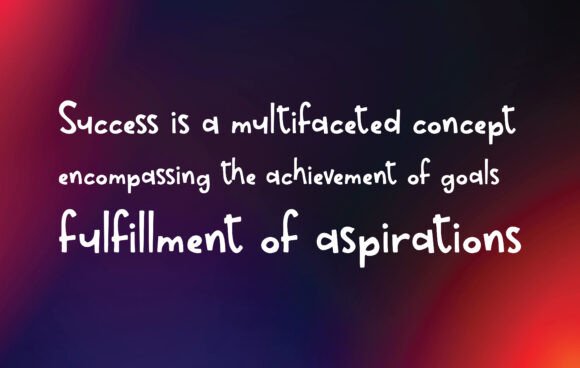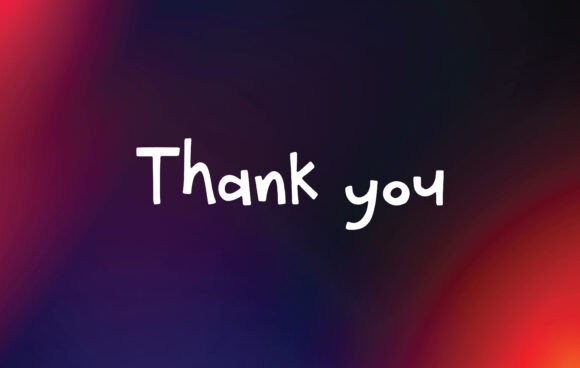
Aardwolf Font: Elevate Your Creative Projects with this Lovely Handwritten Font
Are you a designer, crafty person, or creative enthusiast looking for a unique and beautiful font to take your projects to the next level? Look no further than the Aardwolf Font! This stunning handwritten font is designed to help you create eye-catching logos, branding, and quotes that will leave a lasting impression on your audience.
What Makes Aardwolf Font So Special?
Aardwolf Font is a lovely and beautiful handwritten font that boasts a distinctive and elegant style. Its unique charm and character make it the perfect choice for designers and crafters who want to add a personal touch to their work. Whether you’re creating a logo, branding materials, or social media graphics, Aardwolf Font is sure to make your project stand out from the crowd.
Key Features of Aardwolf Font
- Handwritten style: Aardwolf Font features a beautiful handwritten style that adds a personal touch to any project.
- Unique character: The font’s distinctive character and charm make it perfect for creating eye-catching logos and branding materials.
- Elegant and sophisticated: Aardwolf Font’s elegant and sophisticated design makes it ideal for creating high-end branding and marketing materials.
- Versatile: This font is versatile and can be used for a wide range of projects, from logos and branding to quotes and social media graphics.
Why Choose Aardwolf Font?
So, why choose Aardwolf Font over other fonts? Here are just a few reasons:
- Stand out from the crowd: Aardwolf Font’s unique style and character will help your project stand out from the crowd and grab attention.
- Easy to read: Despite its elegant and sophisticated design, Aardwolf Font is easy to read and understand, making it perfect for body text and captions.
- Customizable: Aardwolf Font is highly customizable, allowing you to adjust the font size, color, and style to fit your project’s needs.
- Time-saving: With Aardwolf Font, you can create professional-looking projects in no time, saving you time and effort.
How to Use Aardwolf Font
Using Aardwolf Font is easy! Here are a few tips to get you started:
- Logos and branding: Use Aardwolf Font to create stunning logos and branding materials that will help your business stand out.
- Social media graphics: Add a personal touch to your social media graphics with Aardwolf Font’s elegant and sophisticated design.
- Quotes and posters: Use Aardwolf Font to create eye-catching quotes and posters that will grab attention and inspire your audience.
- Packaging and labels: Add a touch of elegance to your packaging and labels with Aardwolf Font’s beautiful handwritten style.
Tips and Tricks for Working with Aardwolf Font
Here are a few tips and tricks to help you get the most out of Aardwolf Font:
- Experiment with font sizes: Try out different font sizes to see how Aardwolf Font looks in different contexts.
- Play with color: Experiment with different colors to find the perfect match for your project’s brand and style.
- Mix and match: Try pairing Aardwolf Font with other fonts to create a unique and eye-catching combination.
In conclusion, Aardwolf Font is a beautiful and versatile handwritten font that is perfect for designers, crafters, and creative enthusiasts. Its unique character and elegant design make it the perfect choice for creating eye-catching logos, branding, and quotes. With its ease of use and customizability, Aardwolf Font is sure to take your creative projects to the next level.